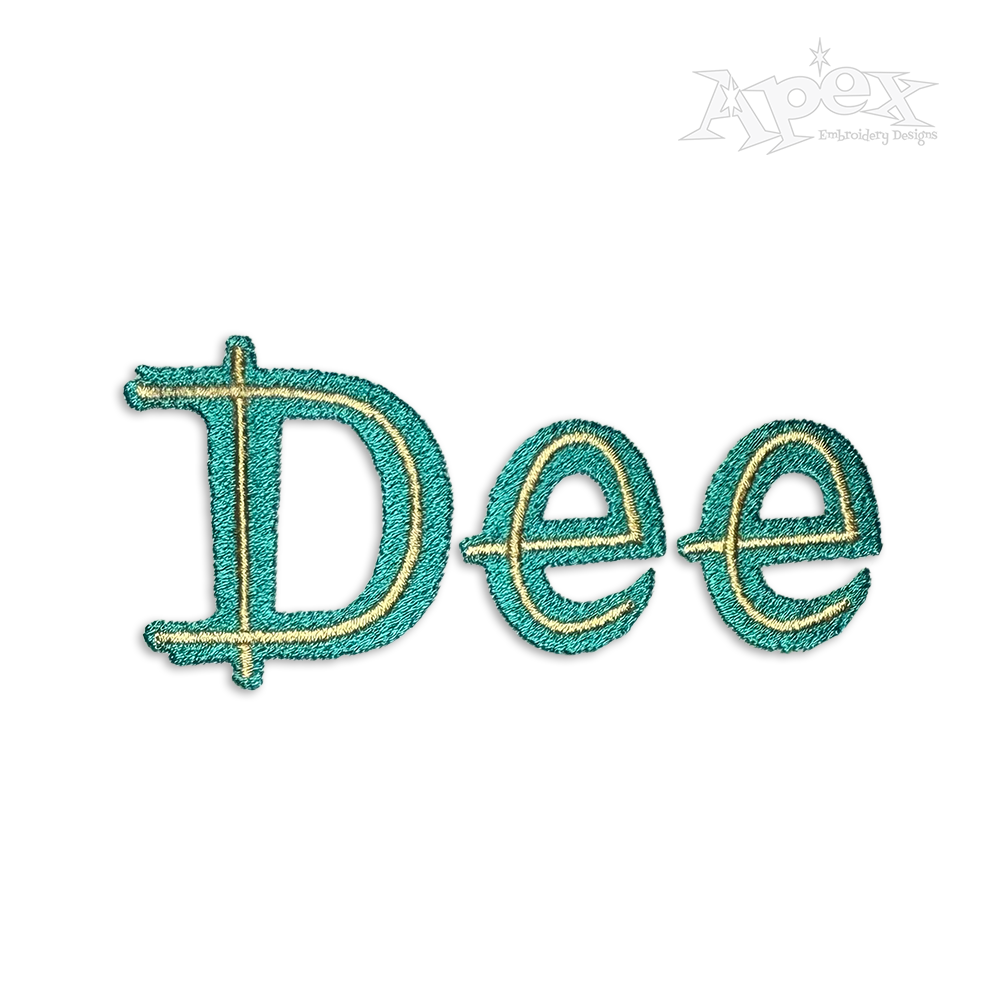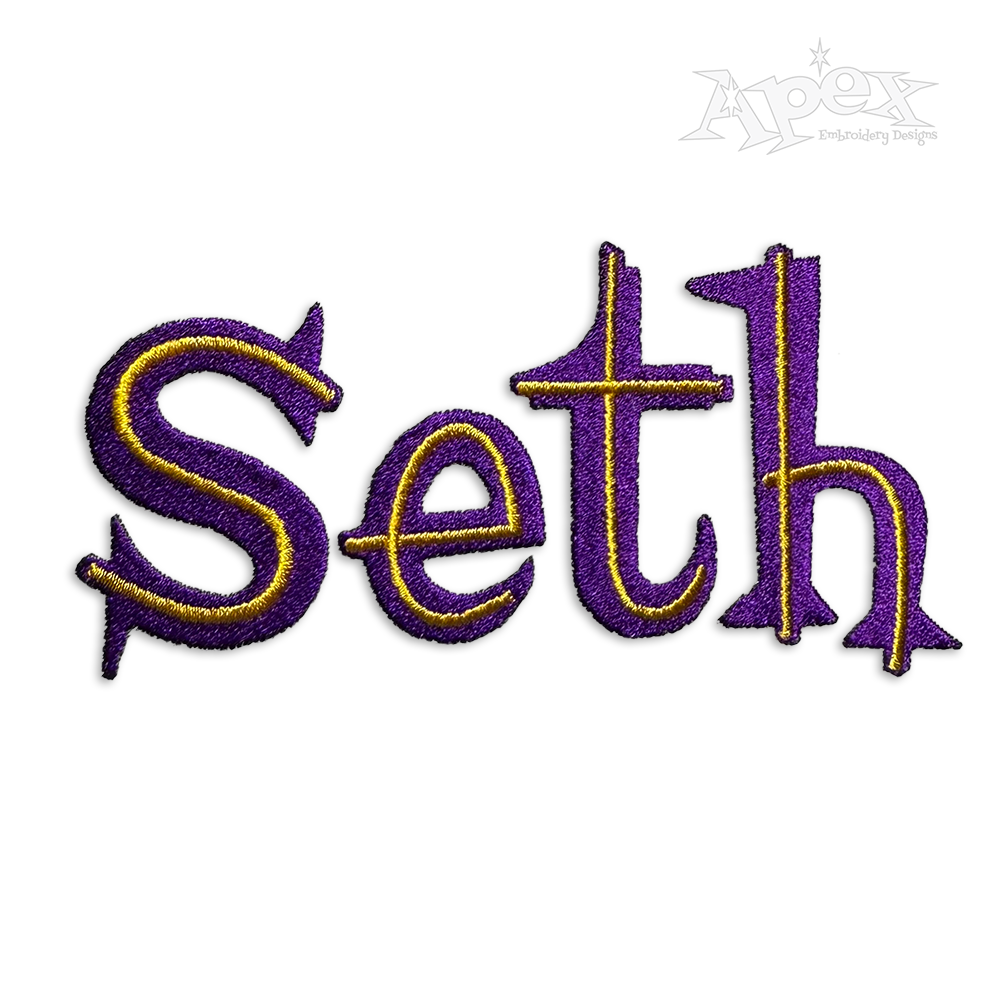
Willow Embroidery Font
There is a quiet, poetic grace in the way weeping willow branches trail along water, an effortless movement that inspired the foundational curves of our Willow Embroidery Font. When digitizing this alphabet, our goal was to strike an elusive balance between classic romanticism and structural precision. Each glyph feels alive with organic rhythm, translating fluid calligraphic gestures into luminous satin stitch pathways that catch the light like polished silk. Designed for artisans who cherish bespoke detail, this font infuses personalized gifting and heirloom embroidery with an unmistakable aura of refined, understated luxury.
Digitized with meticulous stitch densities calibrated for each height, the Willow Embroidery Font suite includes versatile scaling options tailored for delicate accents or focal centerpieces:
Project Ideas for Willow Embroidery Font
With its timeless elegance, Willow brings understated grandeur to diverse fabrics and lifestyle silhouettes:
- Luxury Table Linens & Cocktail Napkins: Frame single-initial monograms on hemstitched Belgian linen to elevate dinner parties and bridal registry collections.
- Heirloom Bedding & Bath Linens: Stitch matching couples' monograms onto crisp percale duvet covers, bolster pillows, or plush velour spa towels.
- Bridal Trousseau & Robes: Personalize silken getting-ready robes, lingerie travel bags, and honeymoon clutches with delicate tonal stitching.
- Bespoke Resort Wear & Canvas Totes: Add crisp two-inch initials across heavy structured cotton totes, sun hats, or breezy linen button-down shirts.
- Personalized Keepsake Gifting: Create treasured christening blankets, baby layettes, and anniversary keepsake throws destined to be cherished for generations.
Willow’s balanced proportions make it intuitive to position across traditional and modern garments:
- Corner Diagonal: For dinner napkins and handkerchiefs, orient the monogram at a 45-degree angle approximately 1.5 to 2 inches from the bottom right corner for quintessential dining etiquette.
- Center Chest: Position the 2-inch format 7 to 9 inches down from the shoulder seam (aligned with the armhole base) on cardigans, sweatshirts, or bathrobes.
- Shirt & Blouse Cuffs: Use the 0.75-inch sizing placed centered on the left cuff, aligned horizontally with the cuff buttonhole for sophisticated, executive subtlety.
- Pillow Sham Borders: Center the monogram along the inner flange border or directly dead-center on accent boudoir pillows to create a tailored interior design statement.
Willow Embroidery Font Craft & Letterform Details
The genius of the Willow Embroidery Font lies in the seamless dialogue between organic calligraphic flow and disciplined needle mechanics. When digitizing each character, we paid scrupulous attention to entry and exit points, ensuring that stitch transitions feel soft and uninterrupted. The satin columns feature variable stitch angles that bend naturally along the arch of every curve, mimicking the natural flex of hand-lettered brushstrokes rather than rigid digital vectors.
Specialized underlay patterns are built uniquely into every individual stroke—anchoring unstable fabric weaves while lifting the top satin stitching into rich, dimensional relief. Fine hairline transitions blossom into rich, voluptuous swells without bunching or gathering, ensuring flawless edge integrity whether running on lustrous rayon or high-tensile polyester threads. Willow is more than an alphabet; it is a masterclass in modern monogramming, engineered to turn every project into an enduring work of textile art.